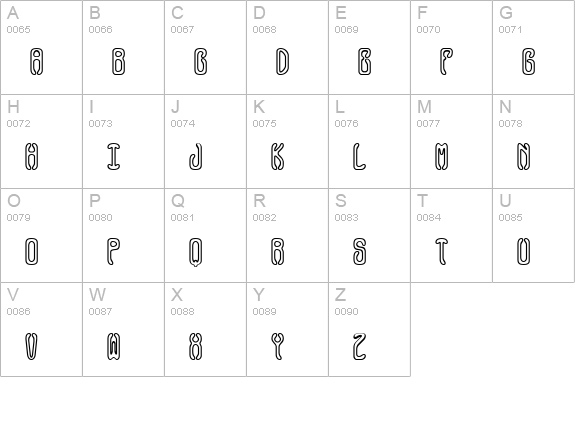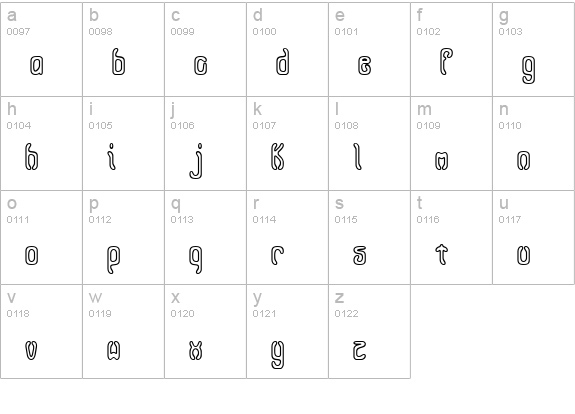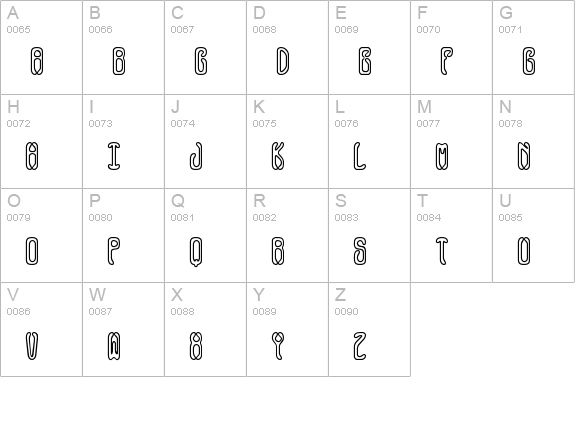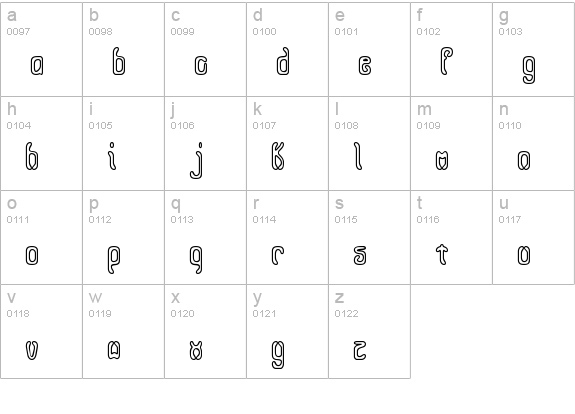
Queasy Outline BRK Font Details
Queasy Outline BRK font is a visually striking typeface that is sure to make a bold statement in any design project. With its unique outline style, this font exudes a sense of creativity and innovation. The letters have a slightly wavy appearance, adding a touch of playfulness to the overall design. One of the standout features of Queasy Outline BRK font is its versatility. It can be used in a variety of settings, from posters and flyers to logos and website designs. This font is capable of capturing attention and conveying a message with its distinctive look. What makes Queasy Outline BRK font even more appealing is the fact that it is free to download. Yes, you heard it right! This font is freely available to download at FontsMarket.com. Whether you are a professional designer or a creative enthusiast, you can access this font without any cost. Downloading and installing Queasy Outline BRK font is a breeze. Simply visit FontsMarket.com, search for the font, and click on the download button. Within seconds, you will have this eye-catching font at your disposal, ready to elevate your design projects to new heights. So, why wait? Take advantage of this amazing opportunity to enhance your design work with Queasy Outline BRK font. Its unique outline style, versatility, and the fact that it is free make it an irresistible choice for designers looking to make a statement. Download it now and let your creativity soar!